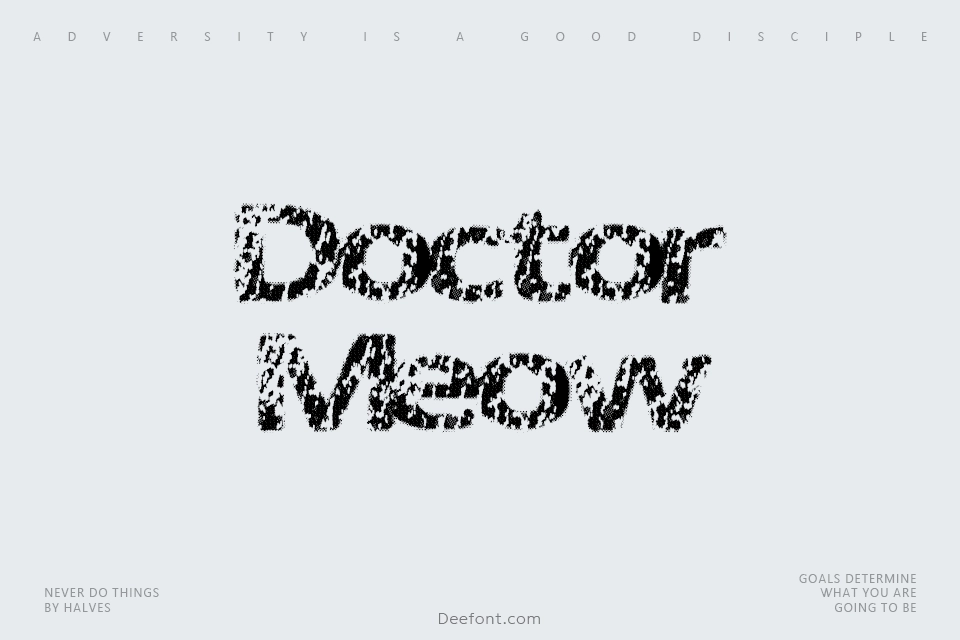
Doctor Meow Font
Doctor Meow is a distinctive display font created by Xerographer Fonts that combines eroded and distorted letterforms with a playful, whimsical character. This unique typeface is designed with a fancy style and organic texture, making it perfect for eye-catching typography projects that require personality and creativity. The font brings a fun, slightly weathered aesthetic to any design, offering a charming alternative to conventional typefaces for creative and entertaining visual communication.